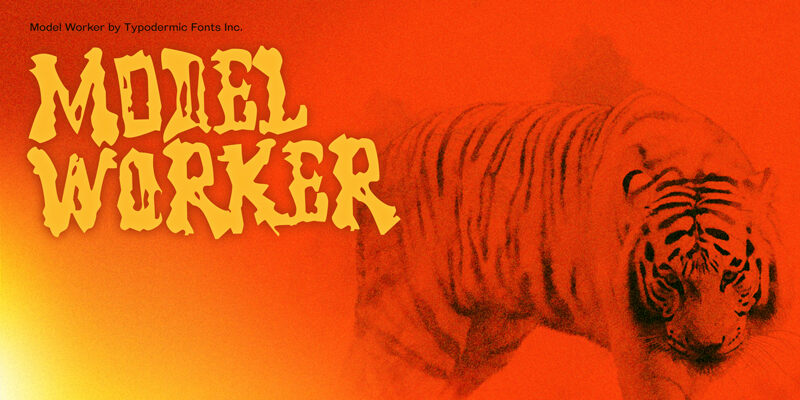
The Model Worker font, crafted by renowned designer Ray Larabie of Larabie Fonts, exudes a captivating sense of raw, industrial charm. With its bold, distorted letterforms evocative of scratched paint on a school locker, this display font radiates a distinctive sense of gritty, authentic character. The uneven, imperfect lines and edges lend the design an organic, handcrafted aesthetic that immediately commands attention and elicits a visceral reaction.
The Model Worker font's striking visual style makes it an excellent choice for projects that require a bold, unconventional typographic statement. Whether designing eye-catching posters, gritty album covers, or edgy branding materials, this font's unique personality can help elevate the overall aesthetic and leave a lasting impression on the viewer.